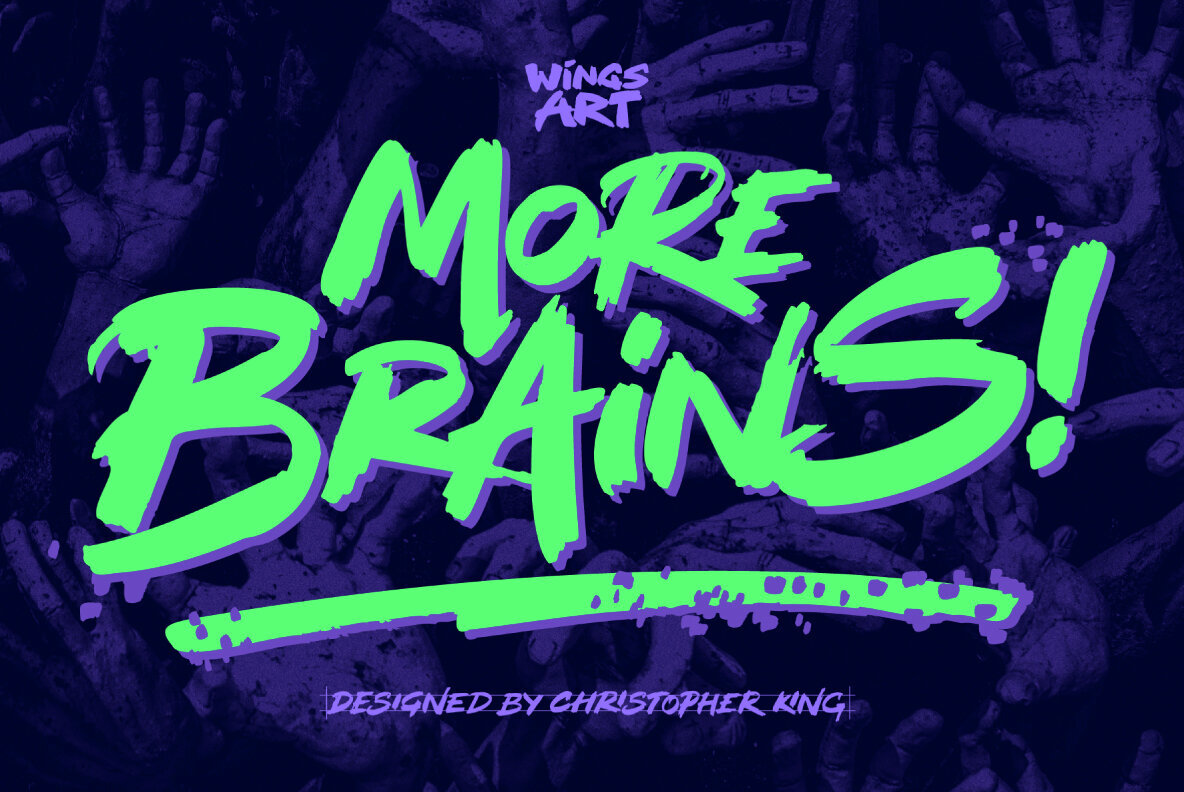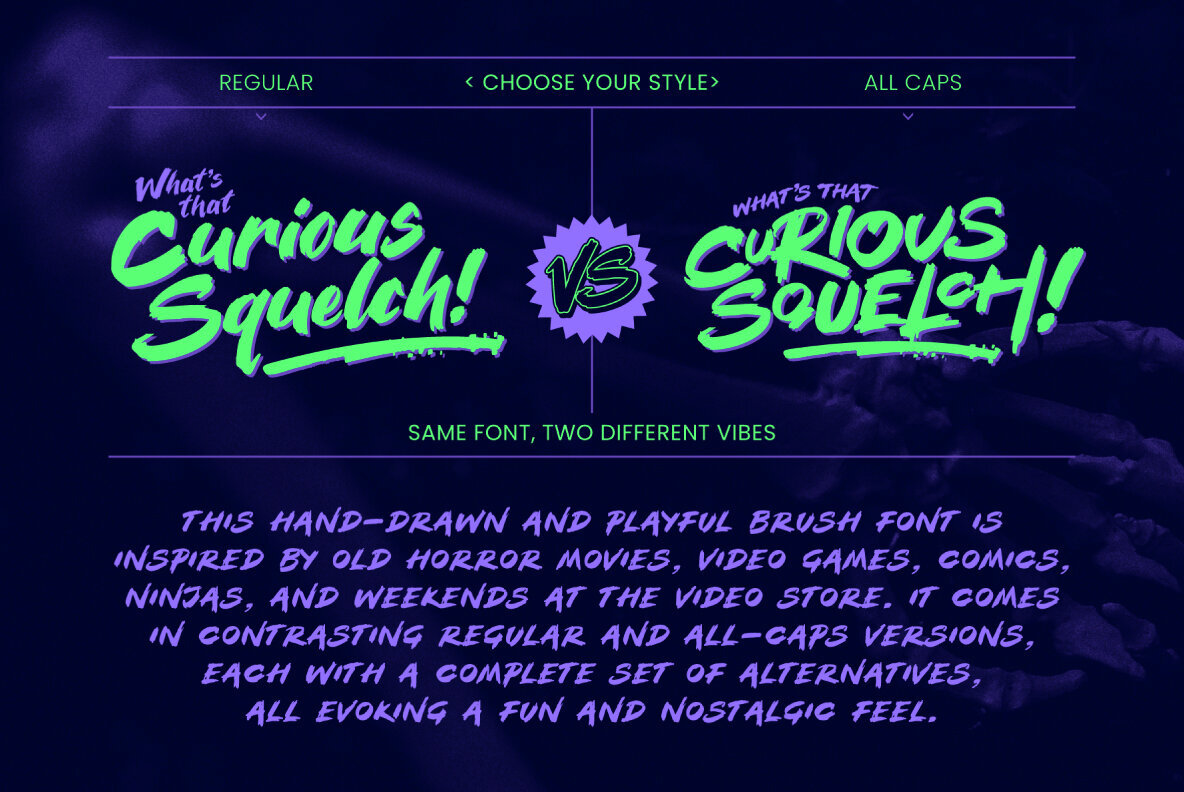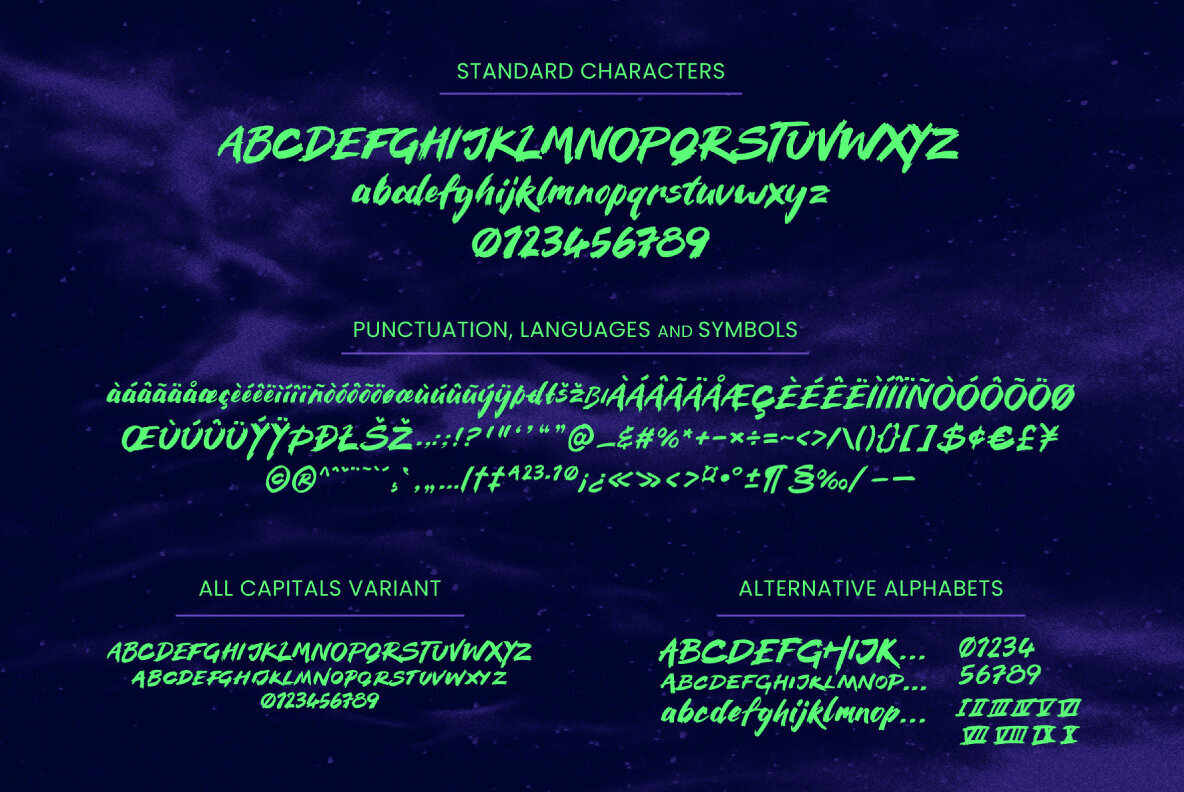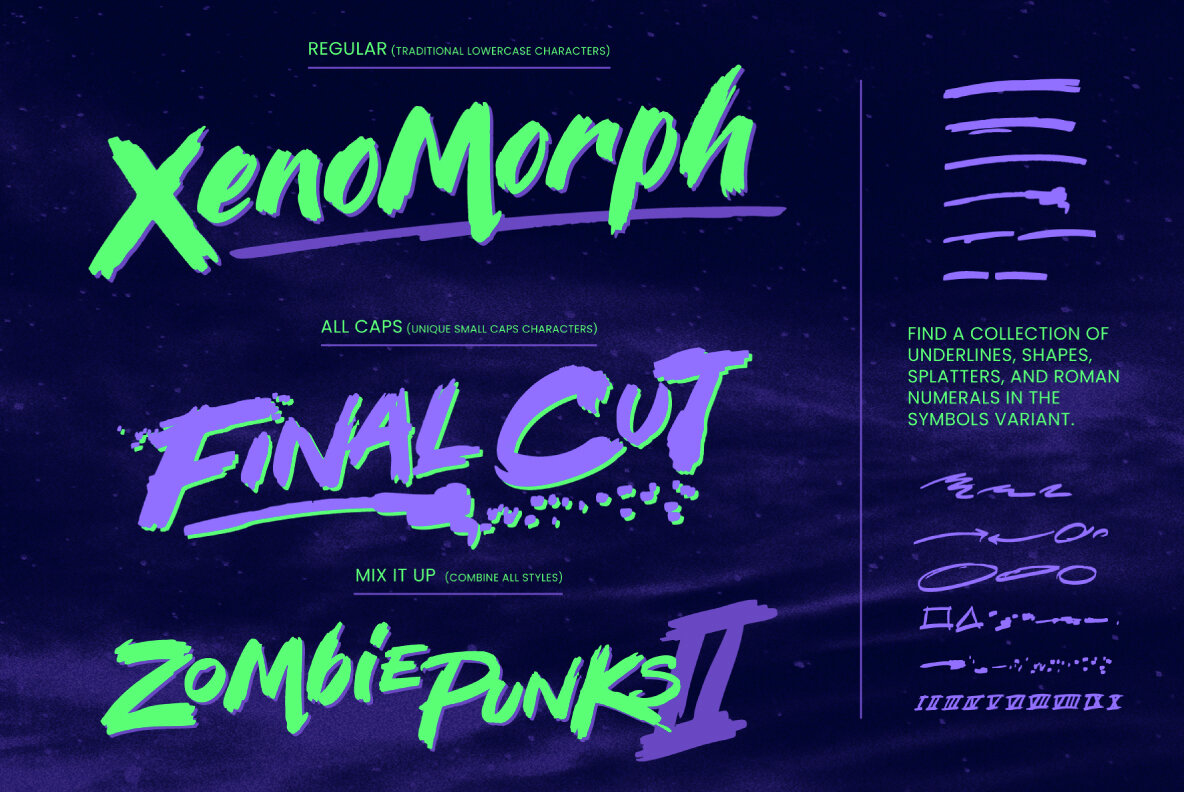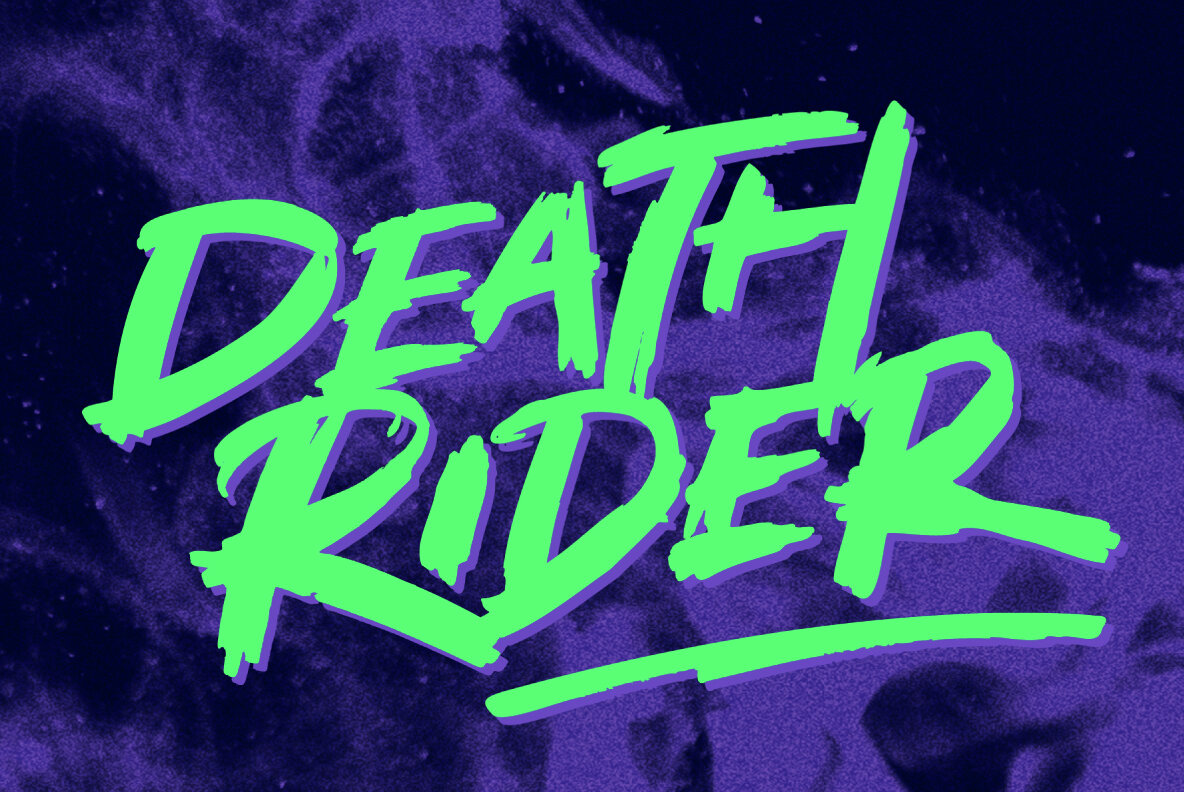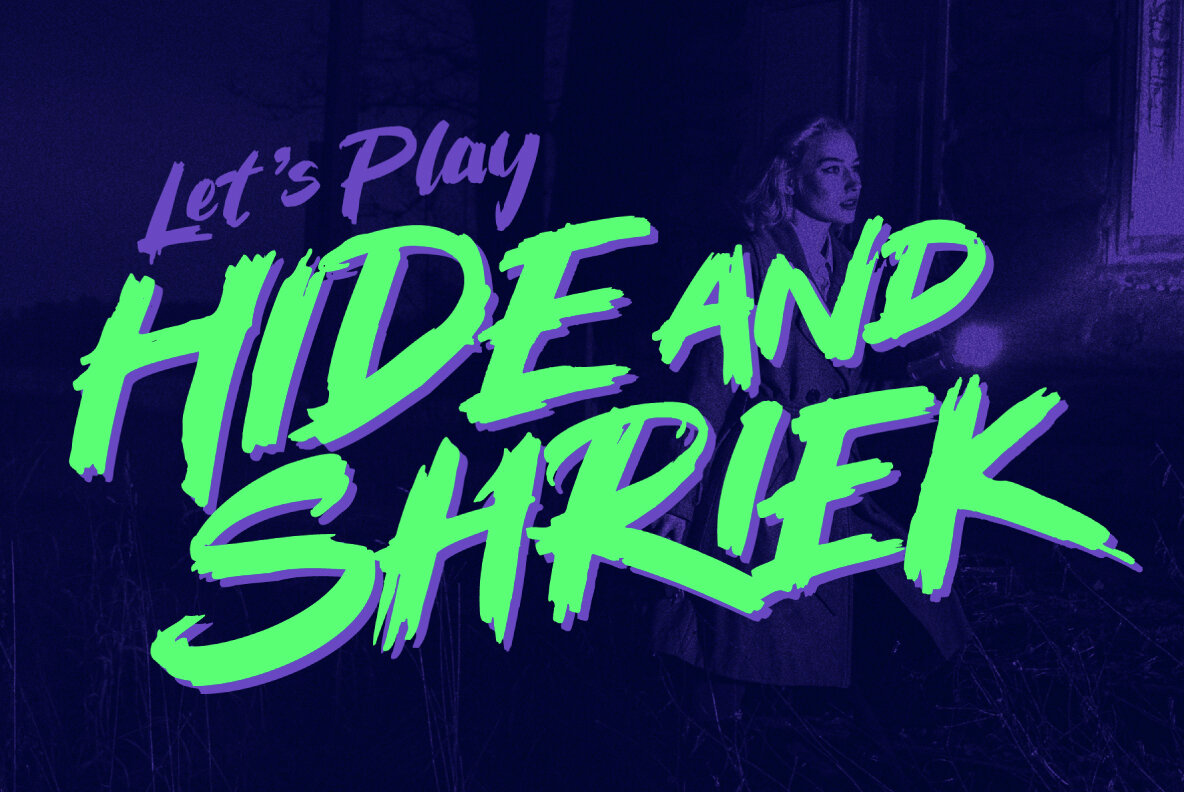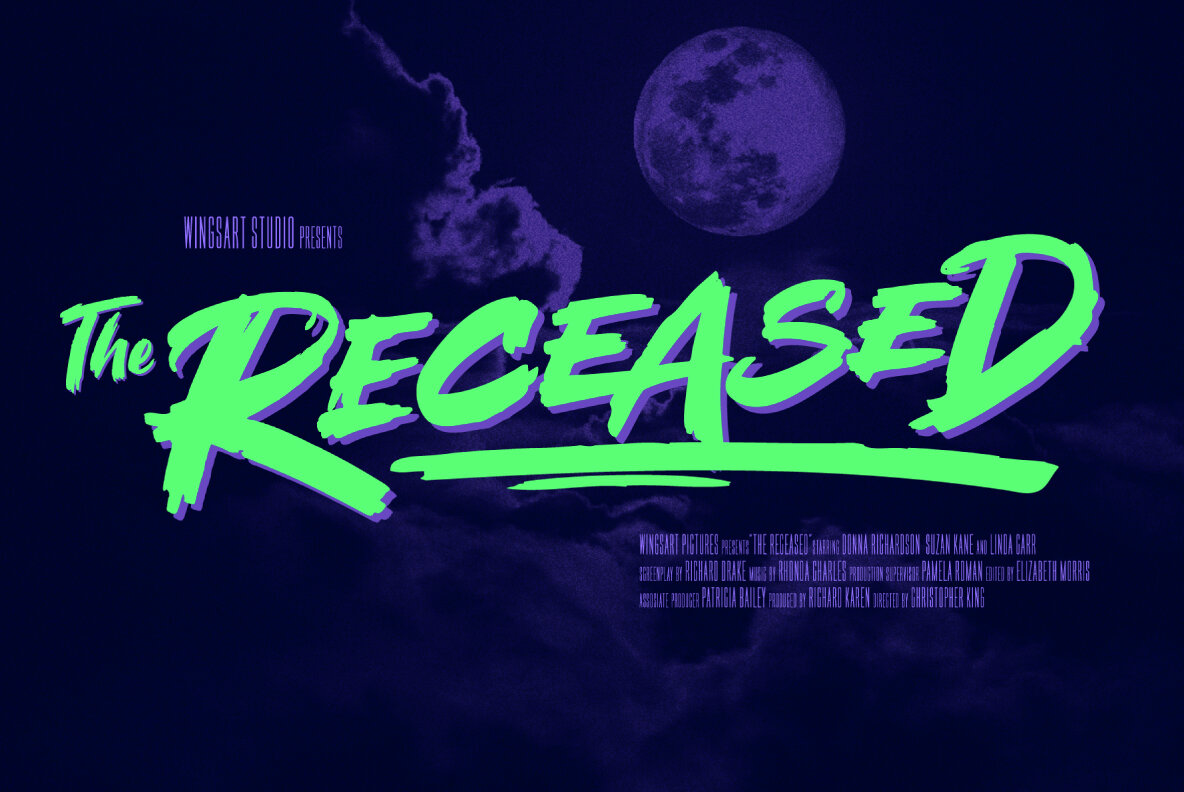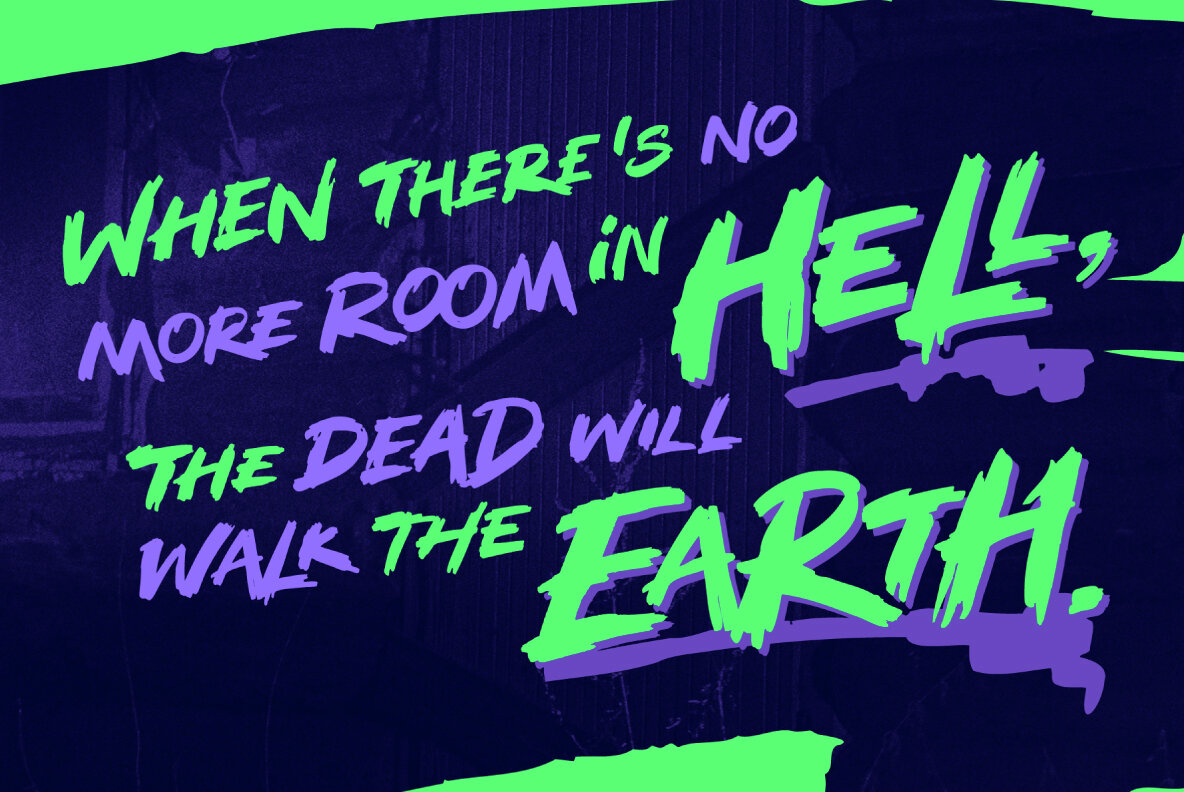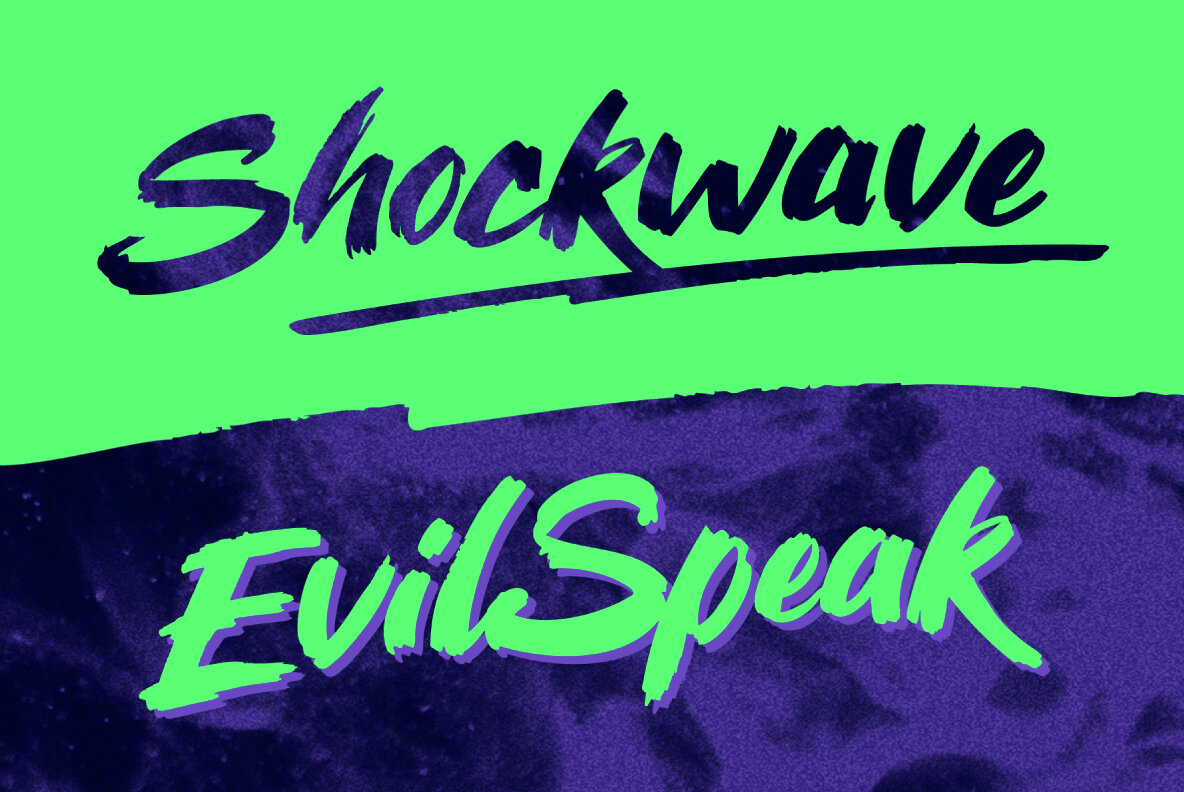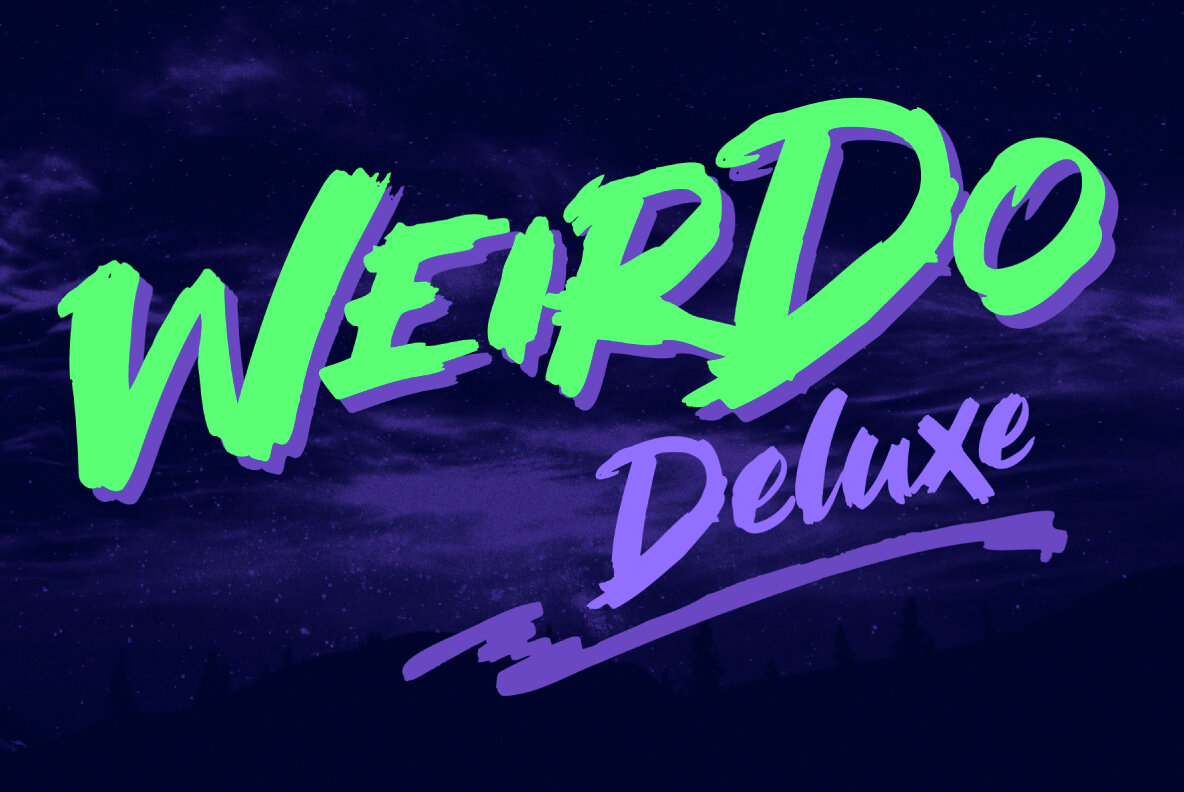
More Brains Font
The More Brains font draws inspiration from classic horror films, video games, and graphic novels, all conjuring the nostalgia of weekends spent at the video store. Its playful, hand-drawn aesthetic comes in both regular and all-caps versions, each accompanied by a full set of alternatives. This font embodies a unique blend of fun and retro charm. Designed to offer a more consistent and stylized appearance akin to Zombie Punks, More Brains introduces a delightful italic slant and includes regular lowercase characters. This adds a whimsical twist to the traditional horror genre. The complementary styles within More Brains make it an excellent choice for dynamic title design, adding a captivating edge to your projects.More Brains: Playful Typography for Nostalgic Creations
Based near Bristol, UK, Christopher King is the designer behind Wingsart Studio, a creative practice specializing in hand-drawn lettering and bespoke typography for film and television. Acting as both a working portfolio and an independent font foundry, Wingsart Studio showcases King’s deep appreciation for mi...